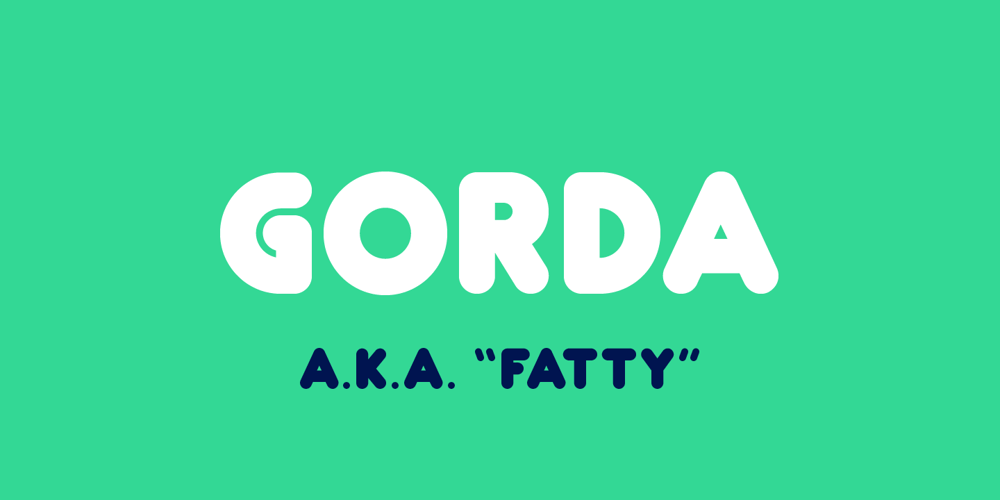
Gorda Font Family was designed by Jan Willem Wennekes and published by Zeptonn. Gorda contains 1 styles and family package options. Oh yeah! Gorda is a huge, bold and all-caps typeface. It’s rounded style makes sure it’s nice and friendly, even though it can be used in (very) large sizes. With Gorda you can produce a powerful and contemporary style. The smaller stroke width of the symbols and punctuation marks makes sure legibility is not an issue, as is often the case with fat type. Gorda is suitable for all sorts of uses, especially posters, headlines, artwork and logos. Use it to draw attention, in a quirky and distinctive way. Gorda has been designed and developed by Zeptonn.